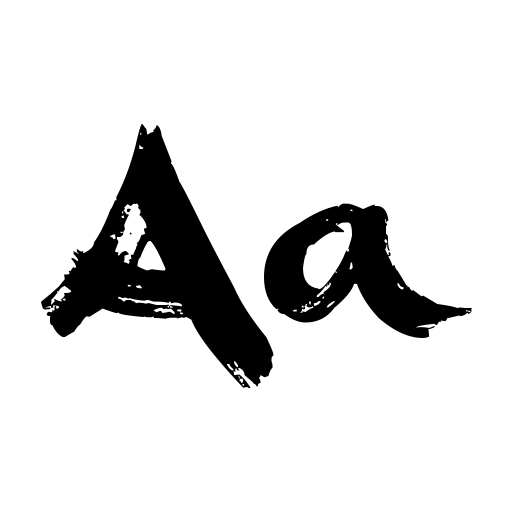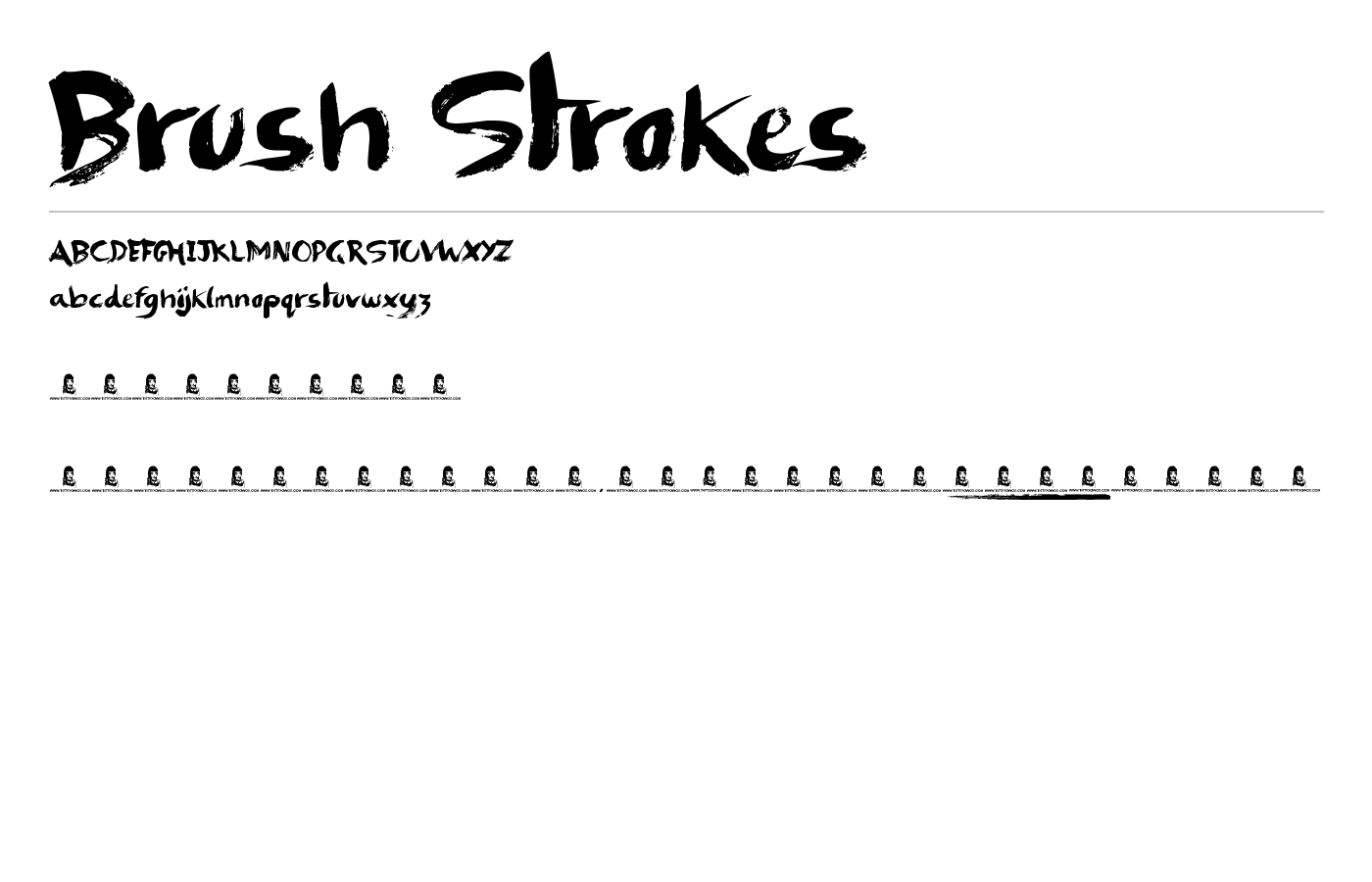
Brush Strokes is a bold, expressive brush script font that captures the dynamic and textured look of hand-painted lettering. With its rough edges and irregular strokes, it conveys an artistic, energetic vibe perfect for creative projects, posters, and branding that seeks a raw, authentic feel. This font works well for eye-catching headlines and designs that want to communicate originality and a handcrafted touch.
Brush Strokes Font
About Brush Strokes Font